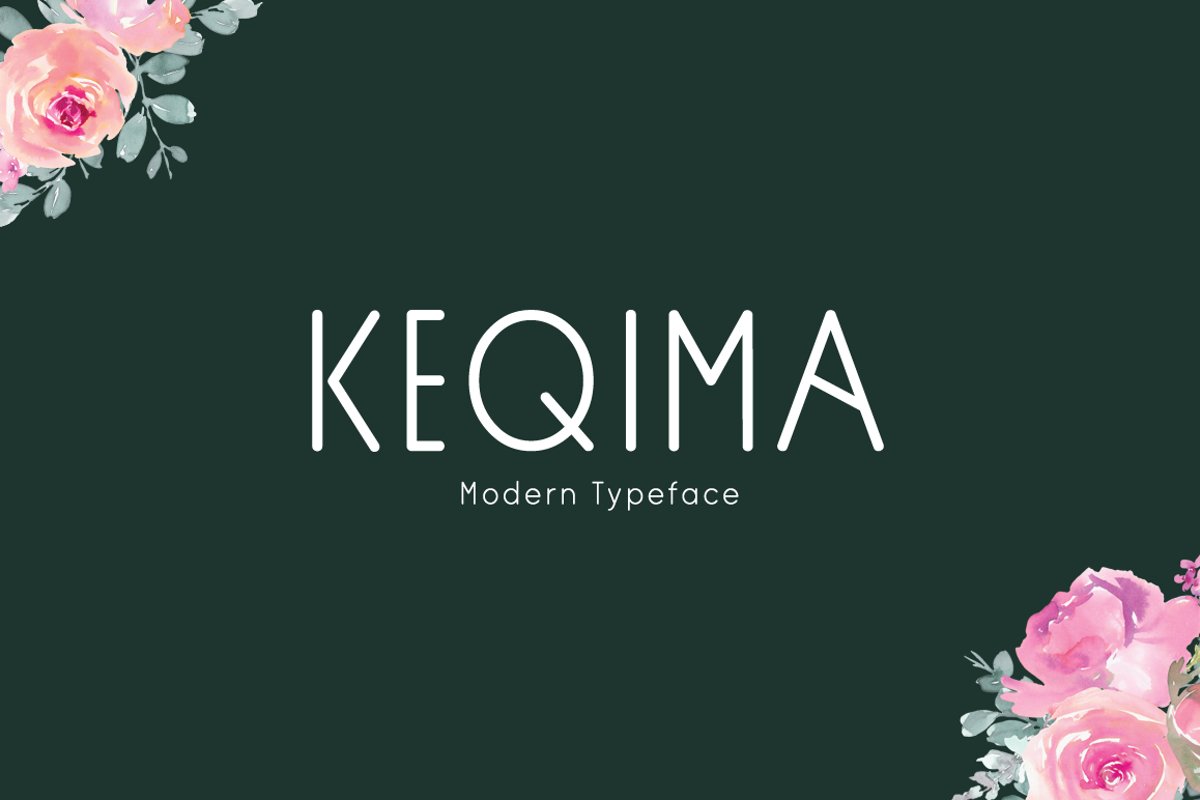
Introducing Keqima!
Keqima is a brand new modern font. Keqima is perfectly suited for stationery, logos, t-shirt, paper, print design, website header, photo frame, flyer, music cover, poster, image slider and much more.